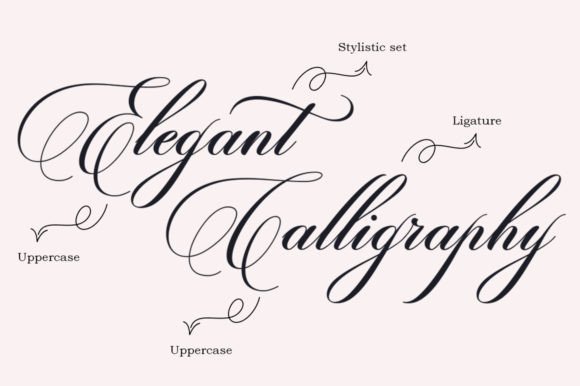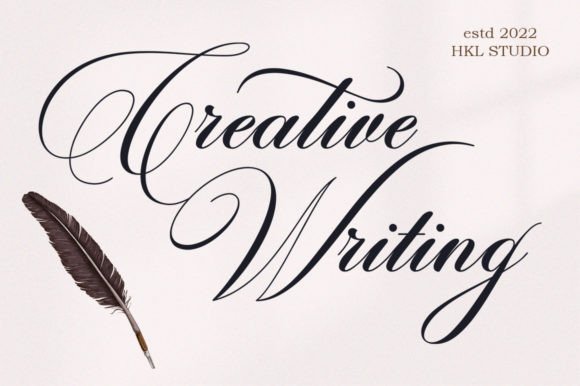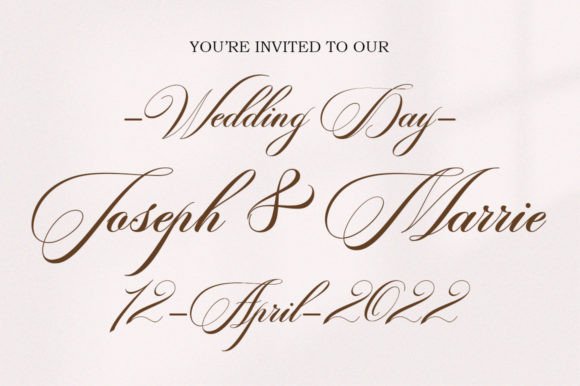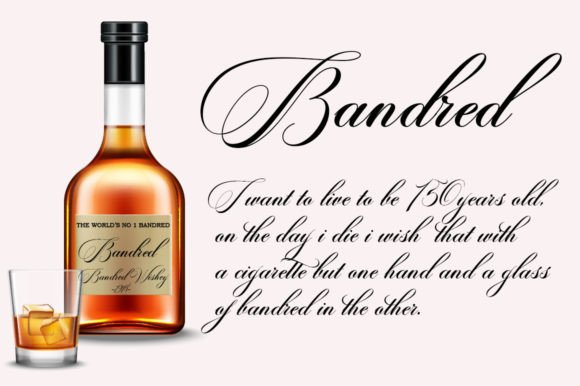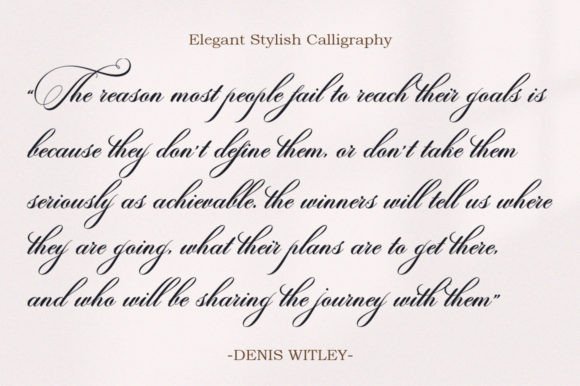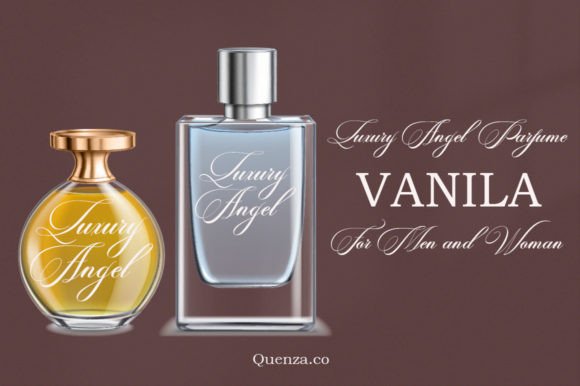
Unleash the Elegance of Your Designs with the Artistic Script Font
Have you ever sat in front of a blank page, feeling the pressure to create something truly unique and captivating? It’s moments like these that remind us of the power of typography to elevate our work and leave a lasting impression. For designers, the right font can be the difference between an ordinary and an extraordinary piece of art.
That’s where the Artistic Script Font comes in – a stunning calligraphy script font that’s as much at home in modern designs as it is in classic, elegant settings. With its exquisite changeable characters and classic copper script aesthetic, this font is perfect for adding a touch of sophistication to invitations, labels, restaurant menus, logos, and more.
What sets the Artistic Script Font apart is its ease of use – with PUA encoding, you can access all glyphs and swashes effortlessly, making it a valuable addition to any designer’s toolkit.
Key Features of Artistic Script Font
- Font Style: Handwritten, script font with elegant and artistic flair.
- Unique Characteristics: Features swashes, ligatures, and contextual alternates, allowing for creative and personalized typography.
Designer Review: Artistic Script Font
As a designer, I’ve had the chance to play around with the Artistic Script Font, and I’m here to give you the lowdown on its strengths and weaknesses.
- The Artistic Script Font has a beautiful, elegant feel to it. It’s perfect for adding a touch of sophistication to your designs.
- The font is highly customizable, with a wide range of weights and styles to choose from.
- The font is great for creating eye-catching headlines and titles, and it pairs well with a variety of other fonts.
- The font is also suitable for use in branding and logo design, as it has a unique and memorable look.
- The font can be a bit too ornate for some designs, so be sure to use it sparingly to avoid overwhelming the viewer.
- The font may not be the best choice for body text, as it can be difficult to read in long blocks of text.
- The font is not suitable for use in small font sizes, as the details can get lost.
Overall, I think the Artistic Script Font is a great addition to any designer’s toolkit. It’s perfect for adding a touch of elegance and sophistication to your designs, but it’s not for every project. Use it wisely, and you’ll be sure to impress.
The Artistic Script font is ideal for creating invitations, greeting cards, and other creative projects. It’s also great for adding a touch of elegance and sophistication to wedding invitations, menus, and other formal documents. Experiment with different design elements and font combinations to create unique and eye-catching designs.